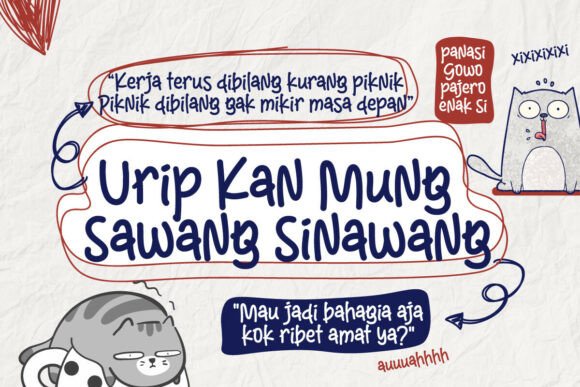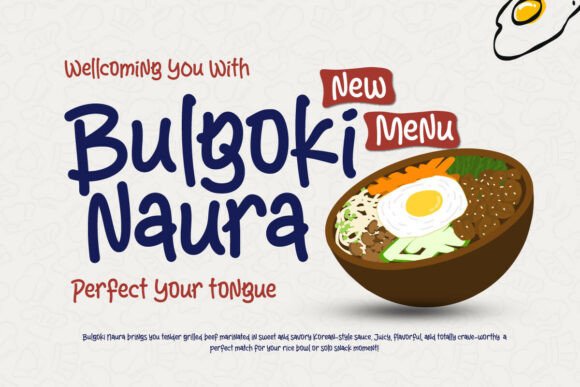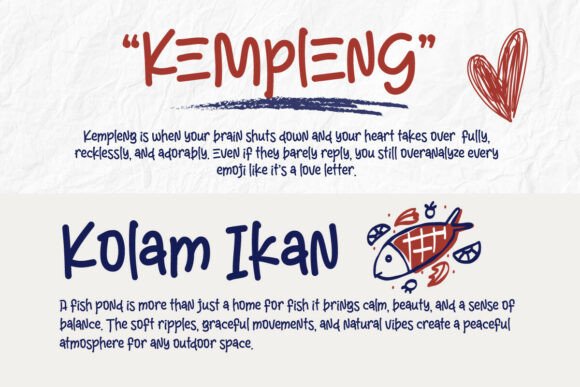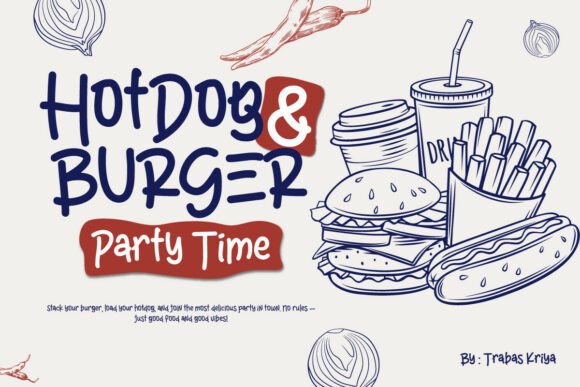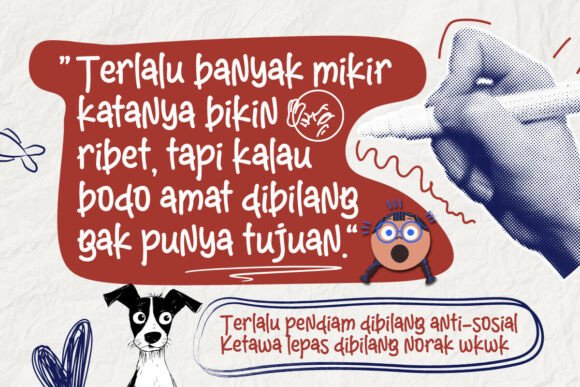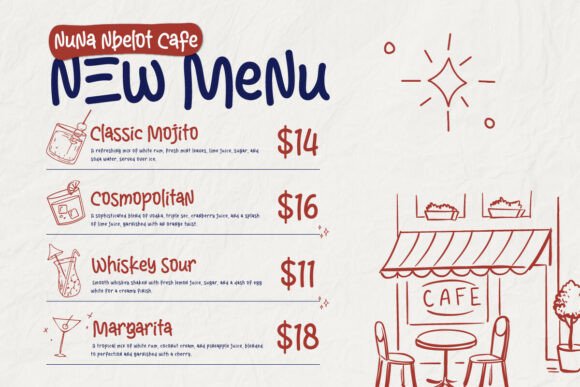
Bathal Nyalon Font: Adding a Touch of Humanity to Your Designs
In a world dominated by digital fonts, finding a typeface that conveys warmth, honesty, and a touch of personality can be a challenge. This is where Bathal Nyalon comes in – a beautiful handwritten font that brings a sense of humanity to your designs. Crafted with natural-looking strokes and an organic rhythm, Bathal Nyalon is the perfect choice for designers and crafters looking to add a personal touch to their work.
The Unique Characteristics of Bathal Nyalon
Bathal Nyalon is a handwritten font that stands out from traditional digital fonts. Its free yet legible letterforms make it suitable for a variety of creative applications, from handmade product branding and food packaging to wedding invitations and social media quotes. Each letter feels like a sincere stroke, bringing words to life with a personal and touching nuance.
One of the key characteristics of Bathal Nyalon is its natural-looking strokes. The font is crafted with an organic rhythm that gives it a sense of fluidity and movement. This makes it perfect for designs that require a touch of playfulness and whimsy. At the same time, the font remains legible and easy to read, making it suitable for a wide range of applications.
Applications of Bathal Nyalon
Bathal Nyalon is a versatile font that can be used in a variety of creative applications. Here are some ideas to get you started:
• Handmade Product Branding: Add a personal touch to your handmade product branding with Bathal Nyalon. The font’s natural-looking strokes and organic rhythm make it perfect for conveying a sense of craftsmanship and uniqueness.
• Food Packaging: Make your food packaging stand out with Bathal Nyalon. The font’s playful and whimsical feel makes it perfect for food brands that want to convey a sense of freshness and quality.
• Wedding Invitations: Add a touch of romance and elegance to your wedding invitations with Bathal Nyalon. The font’s handwritten feel makes it perfect for wedding stationery and other formal events.
• Social Media Quotes: Make your social media quotes stand out with Bathal Nyalon. The font’s playful and whimsical feel makes it perfect for adding a touch of personality to your social media posts.
The Benefits of Using Bathal Nyalon
So why choose Bathal Nyalon for your designs? Here are just a few benefits of using this beautiful handwritten font:
• Authentic and Unique: Bathal Nyalon provides an authentic and irreplaceable “handmade touch” that sets it apart from traditional digital fonts.
• Emotional Connection: The font’s natural-looking strokes and organic rhythm create an emotional connection with the reader, making it perfect for designs that require a personal touch.
• Versatile: Bathal Nyalon is a versatile font that can be used in a variety of creative applications, from handmade product branding to social media quotes.
In a digital world, finding a font that feels human can be a challenge. Bathal Nyalon is a beautiful handwritten font that brings a sense of humanity to your designs. With its natural-looking strokes, organic rhythm, and playful feel, this font is perfect for designers and crafters looking to add a personal touch to their work. Whether you’re creating handmade product branding, food packaging, wedding invitations, or social media quotes, Bathal Nyalon is the perfect choice. So why settle for a traditional digital font when you can add a touch of personality and emotion to your designs with Bathal Nyalon?
Use Bathal Nyalon to bring your designs to life with personality and emotion. Because in a digital world, something that feels human is the most valuable thing.